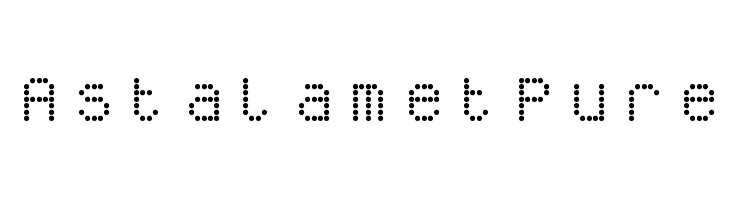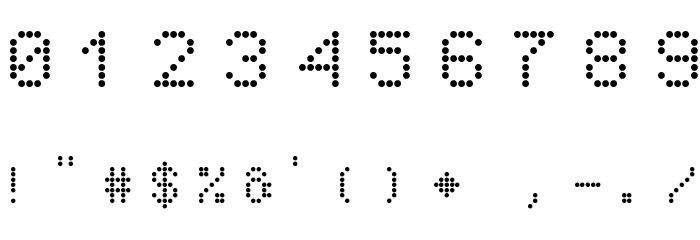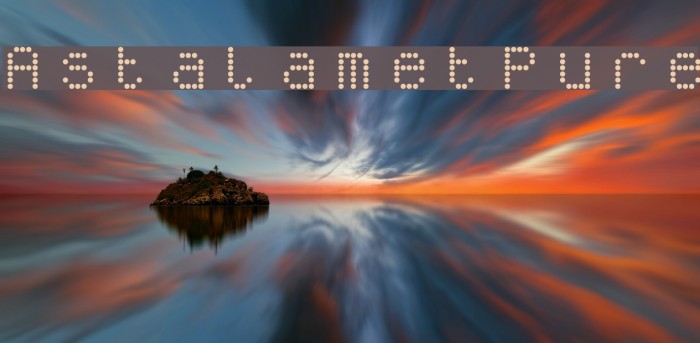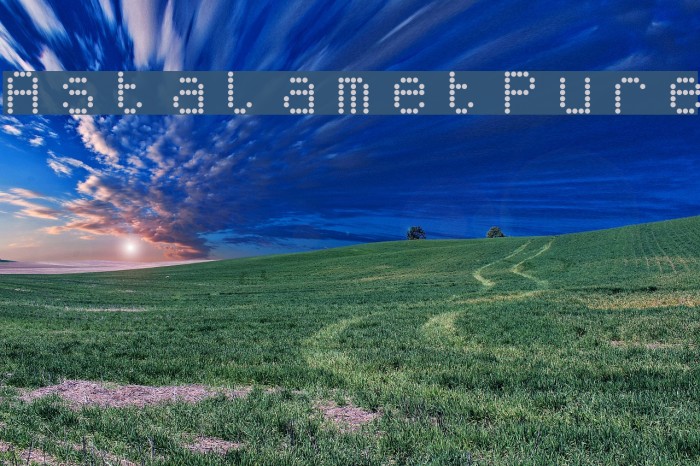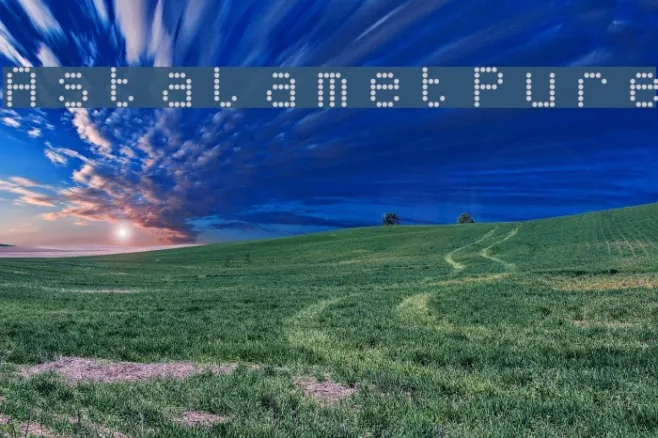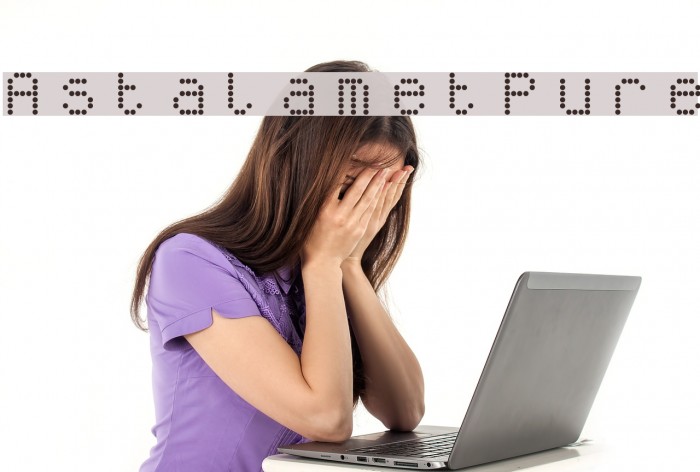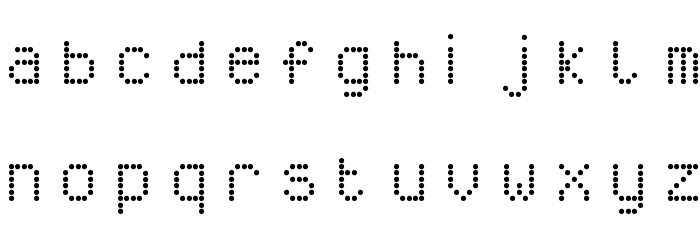
AstalametPure Font
This font features a unique dotted style, where each character is composed of small, evenly spaced dots. The design is geometric and structured, giving it a modern and digital feel. The uppercase and lowercase letters maintain a consistent size and form, ensuring readability while adding a playful touch. Numbers and special characters follow the same dotted pattern, creating a cohesive look across the entire character set. This font is ideal for projects that aim to convey a sense of technology, innovation, or a futuristic theme.
| Use Case | Logos, Headlines, Digital displays |
| Proposed Projects | Ideal for digital art, tech-themed designs, futuristic branding, and innovative product packaging. |